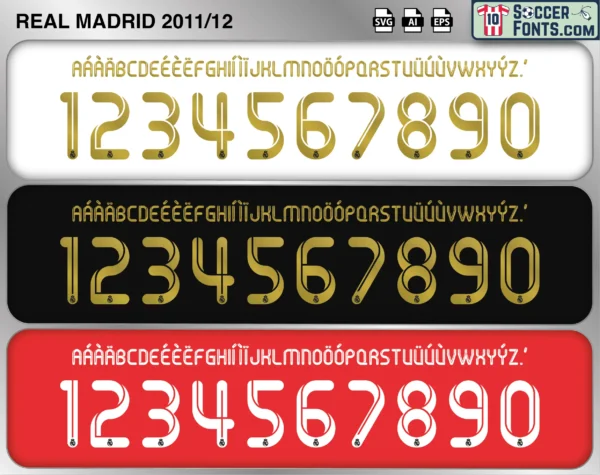
Real Madrid 2011-12 Font
The Real Madrid 2011-12 font is an editable soccer jersey lettering design in vector format inspired by the Real Madrid kit style used during the 2011-12 football season. This football font artwork is prepared for football shirt recreations, custom jersey projects, football kit mockups and sports graphic design workflows.
The 2011-12 season is remembered as one of the greatest league campaigns in Real Madrid history. Under José Mourinho, the club captured the La Liga title with a record-breaking 100 points and 121 league goals, ending Barcelona’s run of domestic dominance. The squad featured Cristiano Ronaldo, Karim Benzema, Gonzalo Higuaín, Mesut Özil, Ángel Di María, Xabi Alonso, Sergio Ramos, Marcelo and Iker Casillas, combining attacking quality with defensive consistency. Cristiano Ronaldo became the first player in Spanish football history to score against every opponent in a single La Liga season, while Real Madrid consistently produced high-scoring performances throughout the campaign.
The Real Madrid 2011-12 font became associated with one of the most dominant domestic seasons ever achieved by the club. The title victory represented a defining moment of the Mourinho era and confirmed Real Madrid’s return as the strongest team in Spain. Real Madrid shirts from this season remain especially collectible because of their connection with Cristiano Ronaldo’s extraordinary goalscoring form and a squad widely regarded as one of the greatest in club history. The Real Madrid 2011-12 font reflects a period of excellence, intensity and record-breaking achievement, capturing a team that set new standards in Spanish football while laying the foundations for future European success.